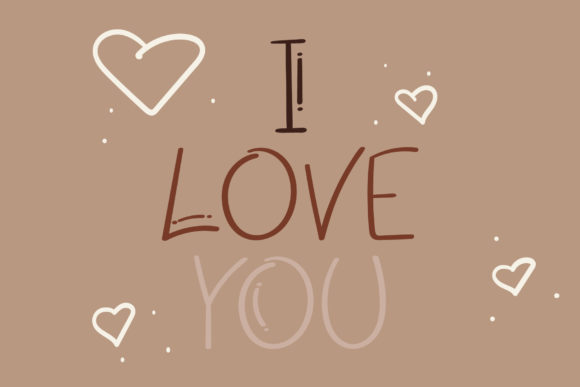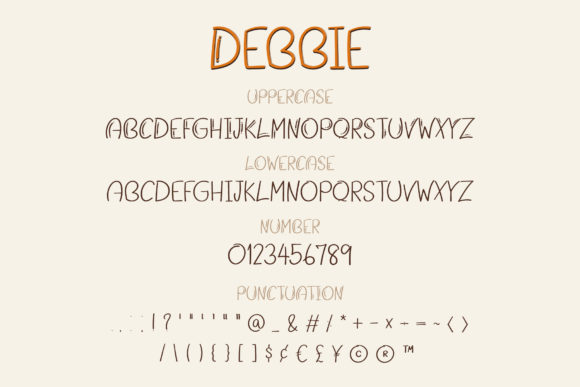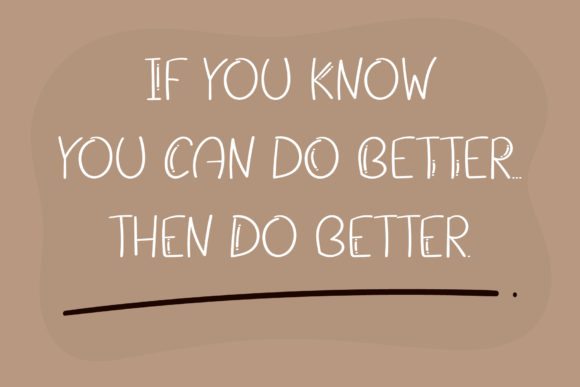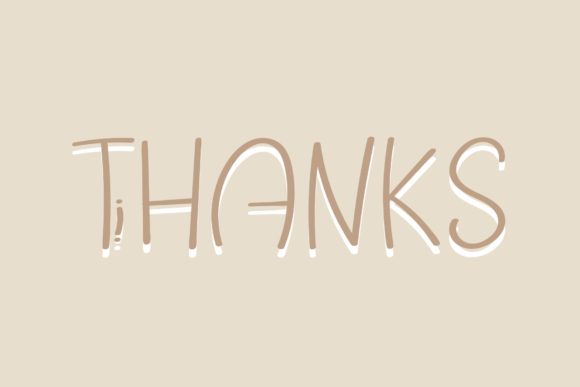
Discover the Charm of Debbie Font: A Fun and Quirky Handwritten Delight
In the world of typography, fonts play a crucial role in conveying the tone and personality of a brand or project. For designers and crafters looking for a unique and eye-catching font, Debbie Font is an excellent choice. This fun and simple handwritten font is clean, quirky, and versatile, making it perfect for a wide range of applications.
What Makes Debbie Font Special?
Debbie Font is a beautifully crafted handwritten font that exudes a sense of playfulness and friendliness. Its clean lines and simple design make it easy to read and recognize, while its quirky touches add a dash of personality and whimsy. Whether you’re working on a logo, branding project, social media graphics, or crafty DIY project, Debbie Font is sure to make your design stand out.
Key Features of Debbie Font
- Handwritten style: Debbie Font has a warm, handwritten feel that’s perfect for creating a personal and approachable tone.
- Clean and simple design: The font’s clean lines and simple design make it easy to read and recognize, even at small sizes.
- Quirky touches: Debbie Font’s quirky touches add a dash of personality and whimsy, making it perfect for designs that need a bit of flair.
- Versatile: This font is suitable for a wide range of applications, from logos and branding to social media graphics and crafty DIY projects.
Debbie Font is an excellent choice for designers and crafters who want to add a personal touch to their projects. Whether you’re creating a logo, business card, or social media graphic, this font is sure to make your design stand out. Its versatility also makes it perfect for crafty DIY projects, such as handmade cards, scrapbooking, and other paper crafts.
Tips for Using Debbie Font
- Pair with bold colors: Debbie Font looks great paired with bold, bright colors that match its playful personality.
- Use for headings and titles: This font is perfect for headings and titles, where its quirky touches can really shine.
- Experiment with sizes: Debbie Font looks great at a range of sizes, from small captions to large headings.
- Add a personal touch: Use Debbie Font to add a personal touch to your designs, making them feel more approachable and friendly.
In conclusion, Debbie Font is a fun and quirky handwritten font that’s perfect for designers and crafters looking to add a personal touch to their projects. Its clean design, quirky touches, and versatility make it an excellent choice for a wide range of applications. Whether you’re working on a logo, branding project, social media graphic, or crafty DIY project, Debbie Font is sure to make your design stand out.